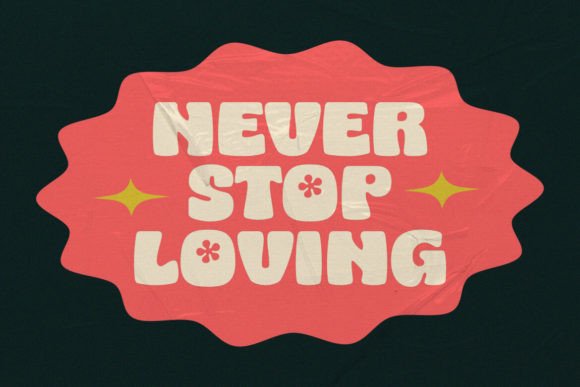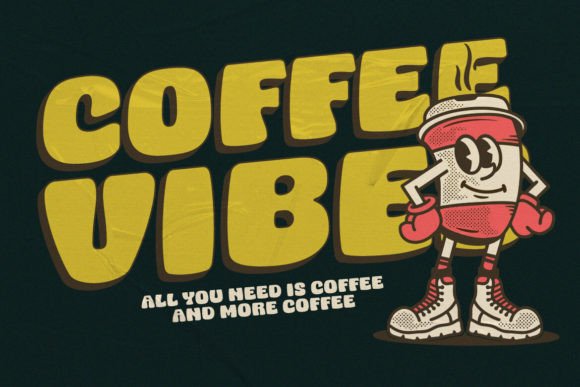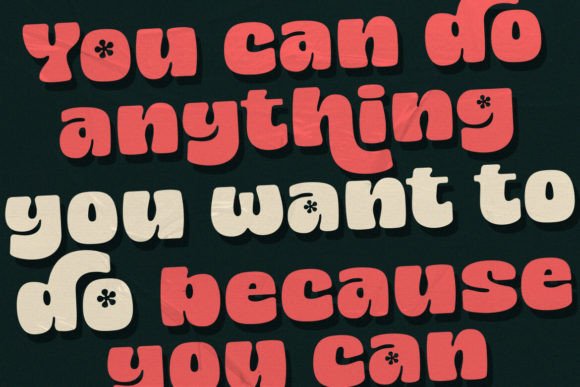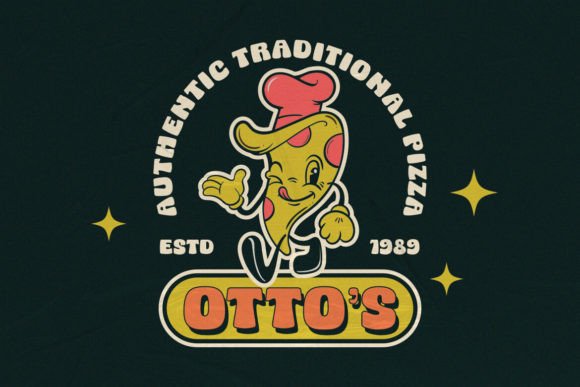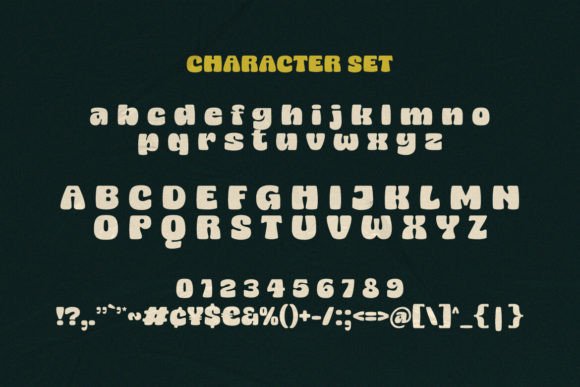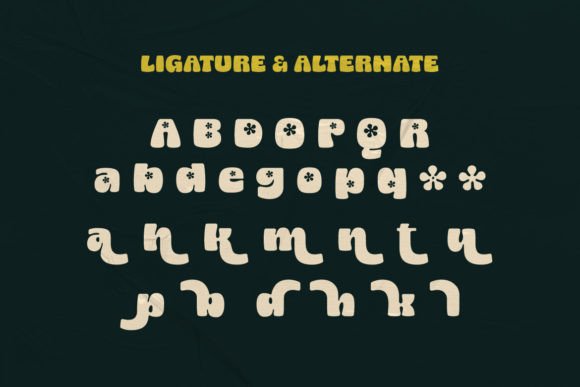
Introduction to Funky Vibes Font
Funky Vibes is a retro psychedelic font style with rounded touch.
Equipped with all complete characters ranging from uppercase letters, lowercase letters, numbers, punctuation marks and multi-lingual support, this font is ready to be used in any project .
Key Features of Funky Vibes Font